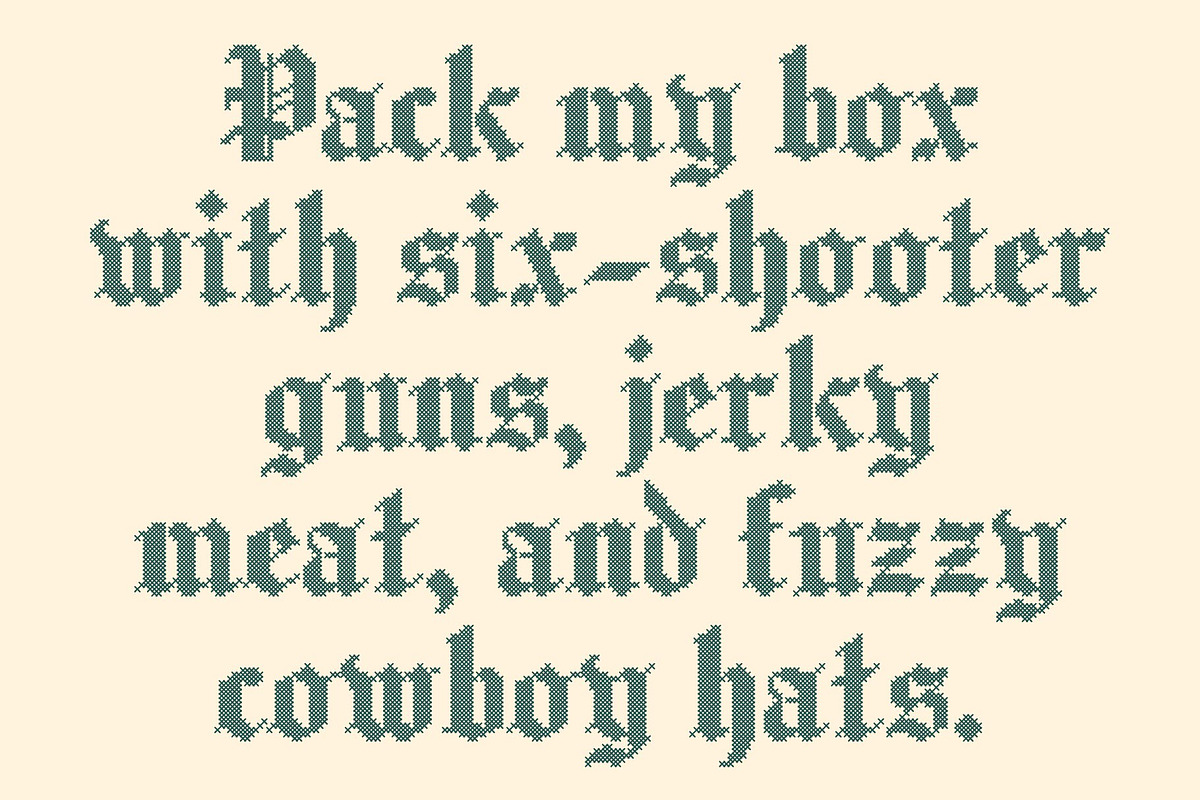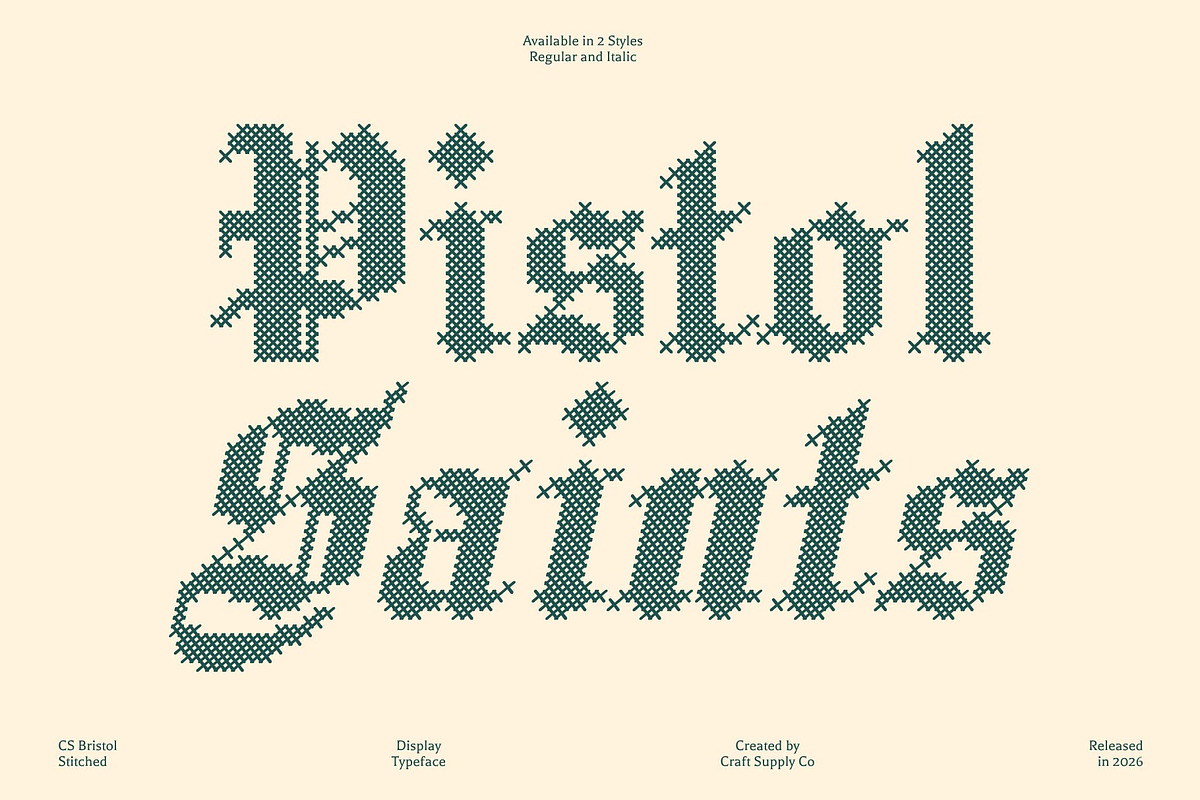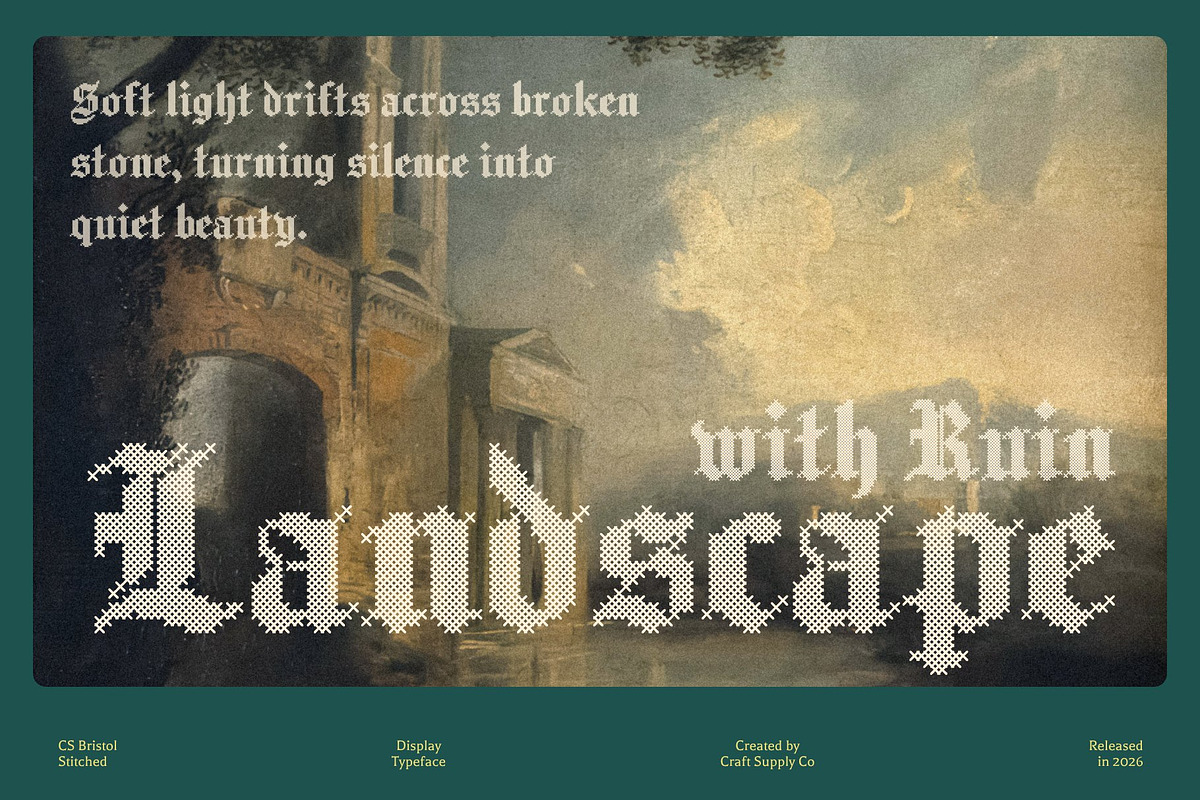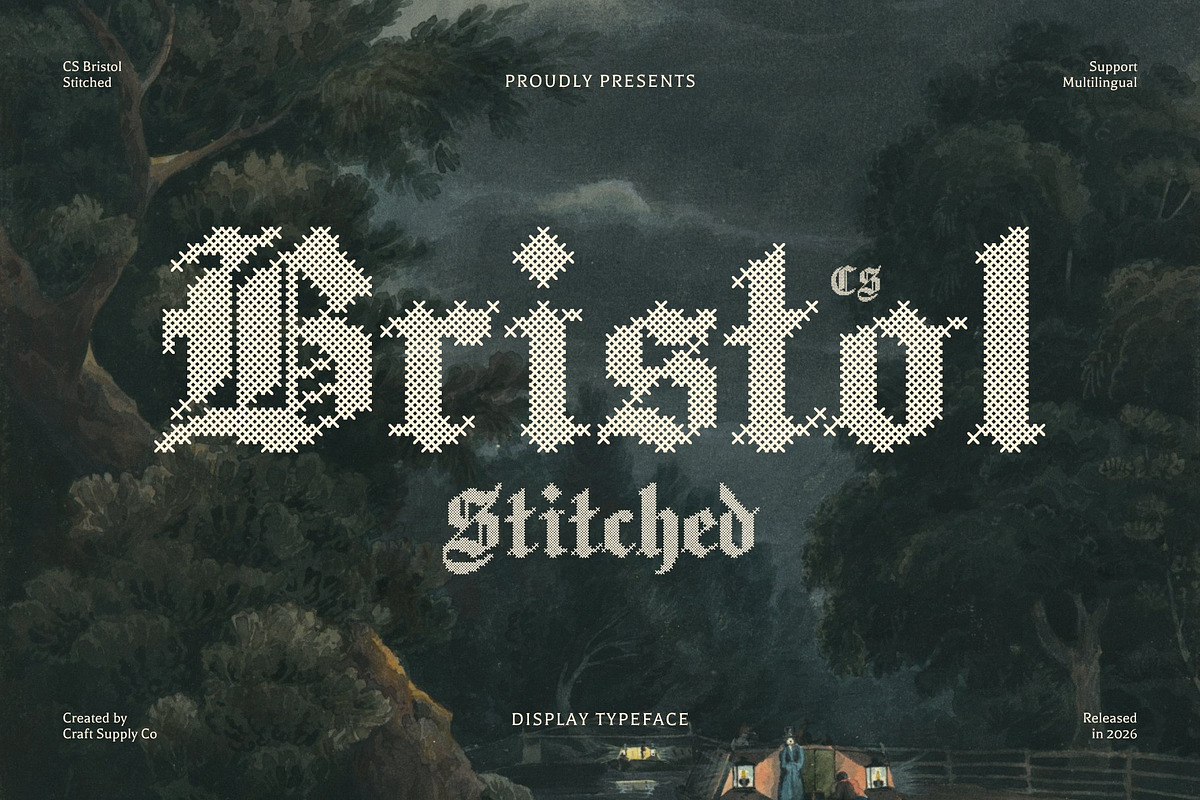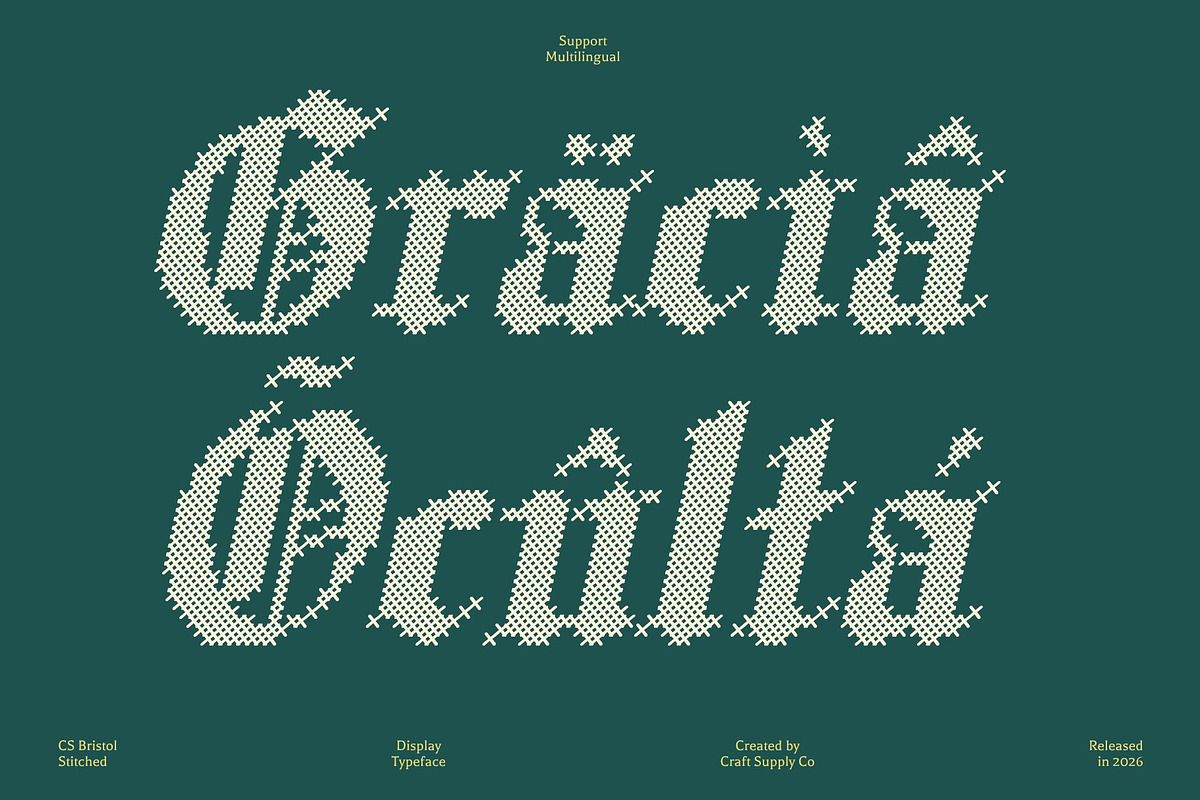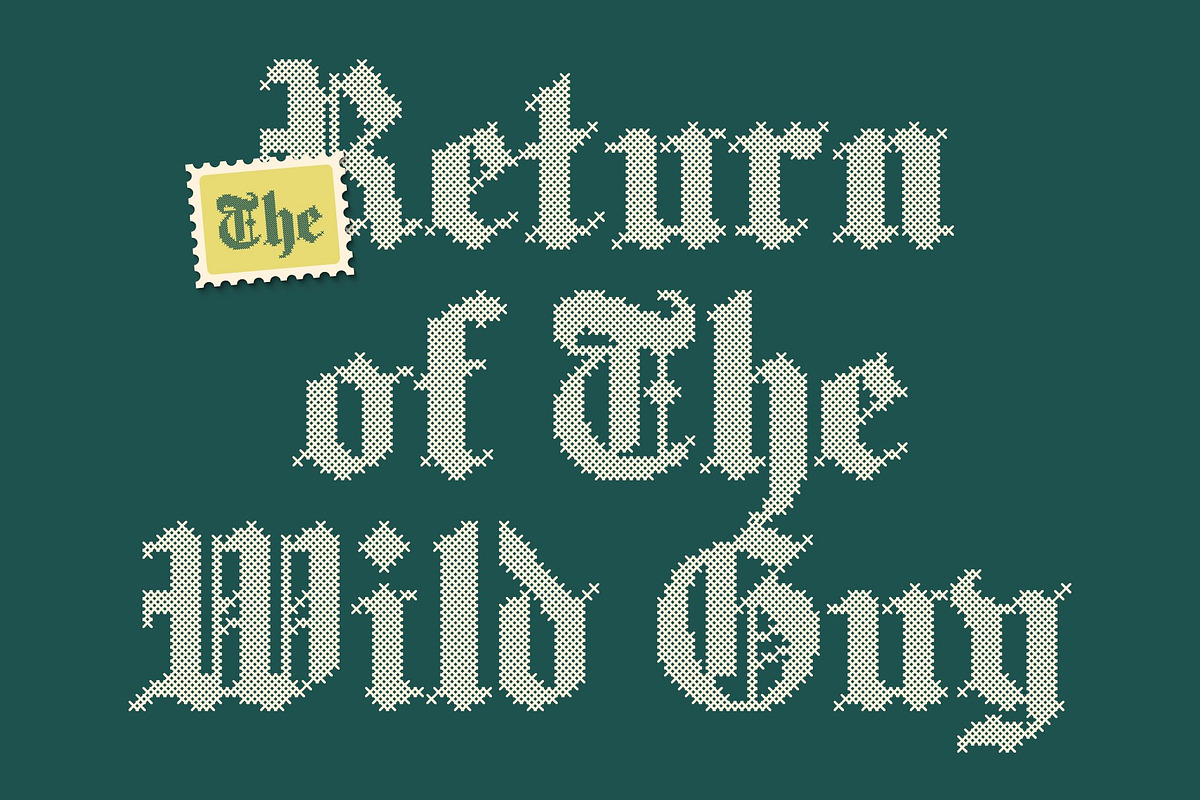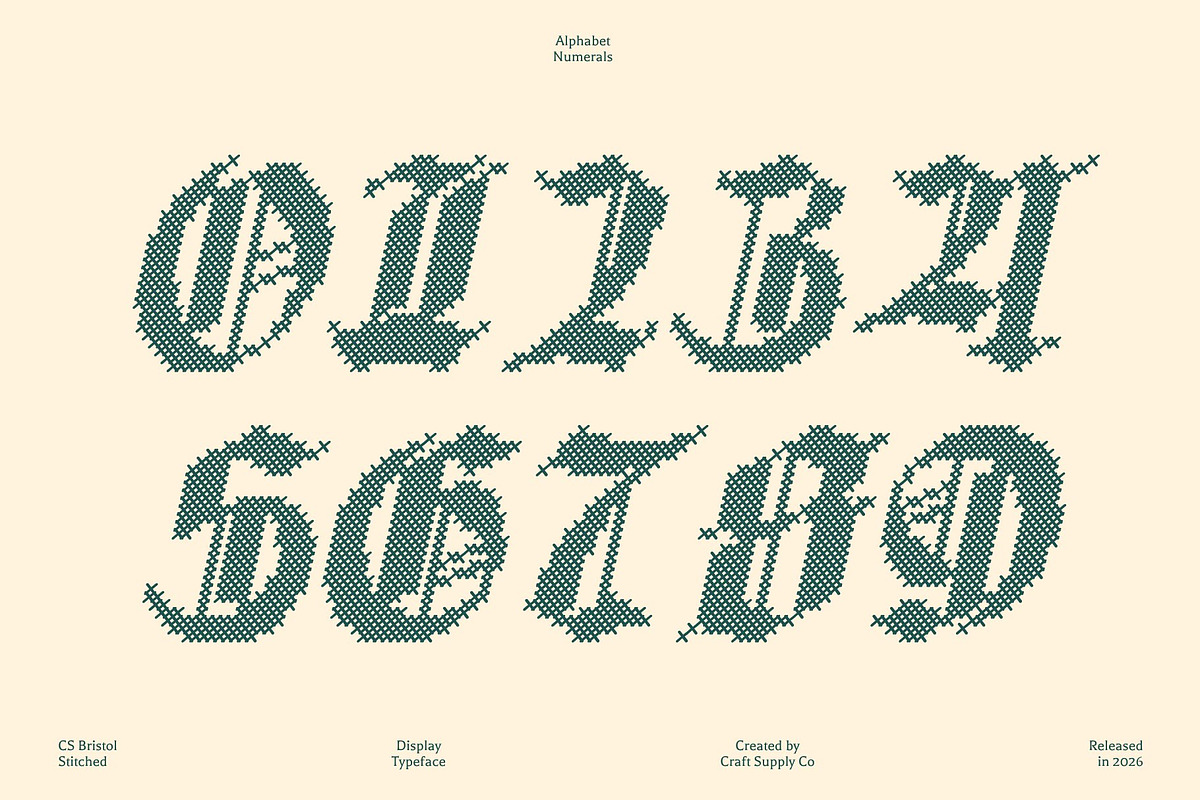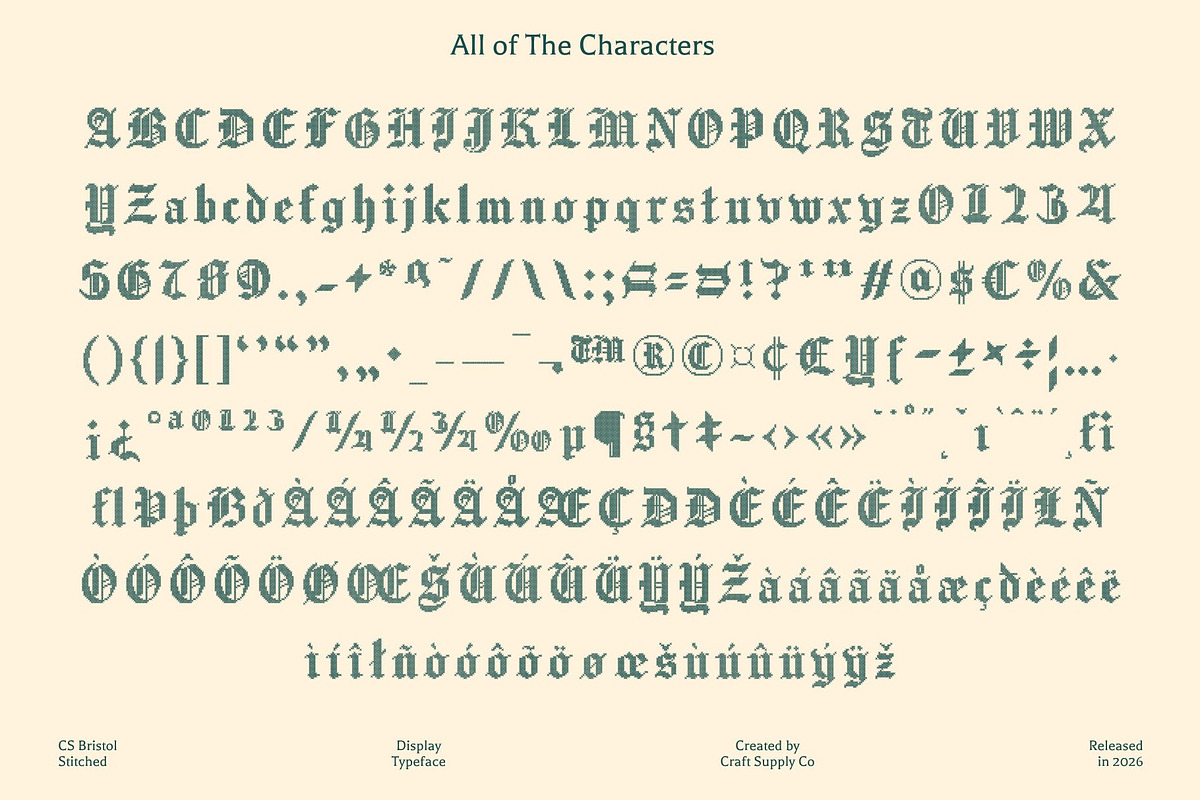
CS Bristol Stitched
CS Bristol Stitched – Blackletter Display Serif Font: Classic Elegance with Historical Prestige Old English Blackletter with Handcrafted Detail This is a distinguished Old English Blackletter display serif font that embodies classic elegance and historical authority. Rooted in traditional English Blackletter writing, its sharp and bold letterforms convey strength, refinement, and prestige. Enhanced with a stitched style inspired by thread sewn or embroidered on fabric, this font introduces a handcrafted touch that adds warmth and personality to its formal structure.
Ornate Letterforms with Embossed Stitch Texture The intricate and commanding design of this font is enriched by a cross-shaped stitch pattern, creating an embossed and structured texture across each character. This unique stitched detail delivers a classic, nostalgic, and relaxed impression, balancing the font’s authoritative presence with a warm and personal feel.
Perfect for Formal, Historical, and Craft-Inspired Applications This is ideal for projects that require a formal or historical tone, such as invitations, certificates, themed designs, and premium print materials. The stitched texture expands its versatility, making it equally suitable for craft-themed designs, clothing labels, fashion logos, school projects, and creative branding that values authenticity and tradition.
Versatile, Prestigious, and Distinctive Blending Old English Blackletter heritage with handcrafted stitched detail, offers a unique balance of sophistication and approachability. Its rich historical flair and tactile character ensure your designs stand out with elegance, quality, and timeless appeal.
- CS Bristol Stitched Regular
- CS Bristol Stitched Italic